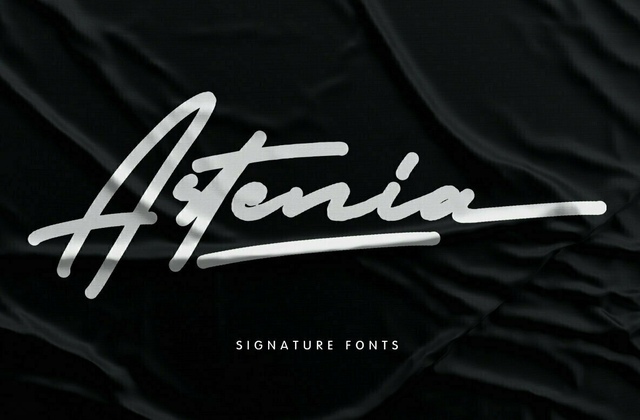
Astenia Font
Astenia Font is perfect for health awareness campaigns, medical communication materials, wellness center branding, fatigue management resources, chronic illness support publications, healthcare provider communications, mental health awareness projects, recovery journey documentation, strength-building programs, and compassionate healthcare messaging.
What makes Astenia Font so exciting is its thoughtful embodiment of resilience and gentle strength that captures the delicate balance between vulnerability and determination in health communication through sensitively crafted typography. This compassionately designed typeface features subtle letterforms with health-conscious proportions and strength-building character variations that immediately convey understanding, support, and the quiet courage required for health challenges. The font's gentle construction and supportive aesthetic create an instant sense of empathetic understanding and healing encouragement, making it ideal for projects that need to communicate health awareness, supportive care, and the transformative power of compassionate communication to audiences facing health challenges and seeking meaningful support and understanding.
The Astenia Font family typically includes multiple supportive weights and caring styles, often featuring light, regular, and medium variations along with gently flowing italic versions. Health-focused font collections frequently offer additional wellness elements such as healing symbols, supportive ornaments, and care-oriented decorations that enhance the compassionate aesthetic and provide designers with comprehensive tools for creating genuinely supportive and emotionally appropriate healthcare communications.
The health-focused nature of Astenia Font makes it particularly effective for targeting demographics that are navigating health challenges and seeking supportive healthcare communication in their wellness journeys. Healthcare marketers and patient advocates will find this font especially valuable for materials that must establish immediate empathetic credibility and connect with audiences seeking authentic supportive experiences and meaningful healthcare communication.
What sets Astenia Font apart is its ability to convey gentle strength while maintaining the sensitivity necessary for effective healthcare and wellness communication. This balanced characteristic makes it suitable for both clinical healthcare applications and supportive wellness contexts where projecting professional competence and maintaining emotional accessibility must work together harmoniously.
Professional designers recognize that Astenia Font brings invaluable healthcare credibility to projects across industries including medical services, wellness programs, patient advocacy, and supportive care organizations. Its gentle character and supportive appeal make it essential for organizations whose mission centers on providing compassionate healthcare, supporting patient wellness, and creating meaningful connections between medical professionalism and empathetic patient care.
The thoughtfully crafted healthcare authenticity of Astenia Font ensures consistent supportive messaging across all health-focused communication applications while honoring the fundamental importance of empathy and understanding in healthcare typography and wellness communication.